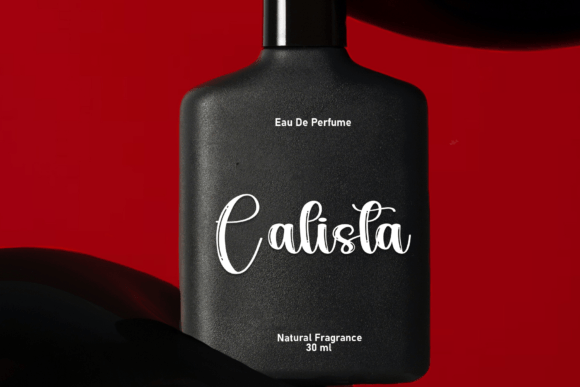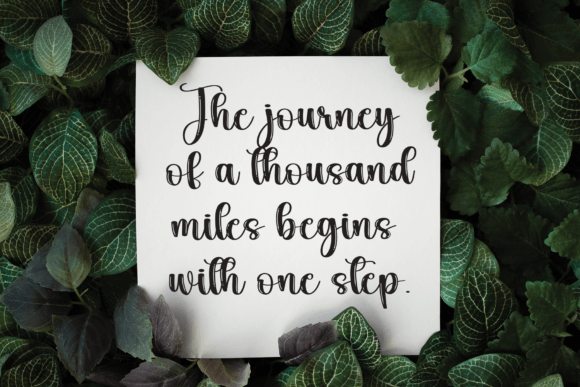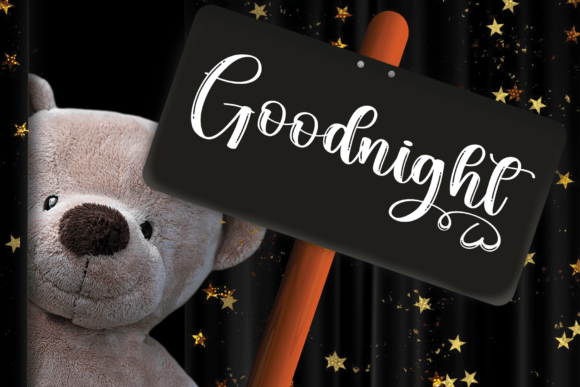
Rustic Signature Font
About the Rustic Signature Font
Meet Rustic Signature Font, a stunning font that brings a touch of elegance and professionalism to any design. Rustic Signature is a stylish script font with elegant, flowing letters. It has a warm and festive feel, perfect for holiday designs, greeting cards, or special events. The smooth curves and playful style make it easy to read and add a cheerful touch to any project.
Rustic Signature’s playful energy makes it ideal for projects requiring a warm, approachable feel. It excels in headlines, short text blocks on invitations or packaging, and logos where a handcrafted, slightly informal aesthetic is desired. Avoid using it for lengthy body text or UI elements; its script nature makes extended reading difficult.
Pairing Rustic Signature with a clean sans-serif like Montserrat or a geometric sans-serif like Futura provides a strong contrast, balancing its organic curves with modern structure. For a more traditional feel, consider pairing it with a classic serif like Garamond or a more contemporary serif like Playfair Display.
The font’s overall personality is friendly and celebratory, best suited to brands focused on artisanal goods, events, or products targeting a younger demographic seeking a touch of rustic charm. It communicates a sense of approachability and warmth without sacrificing elegance.
Rustic Signature Font Usage Examples
Rustic Signature Font Example